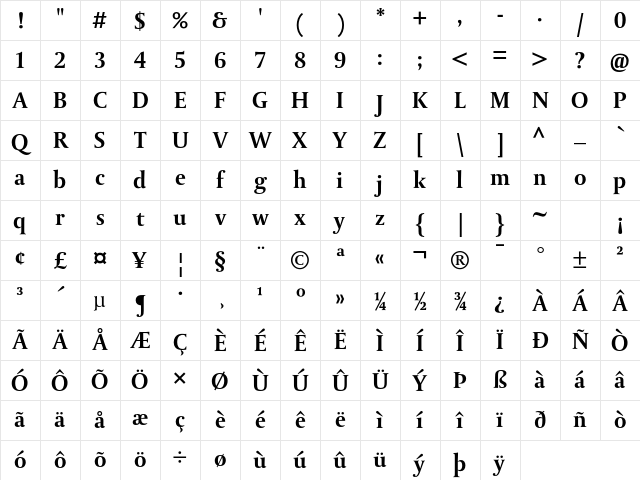
DTLParadoxT Bold
Design Context for DTLParadoxT
DTLParadoxT is a composed and adaptable typeface that performs quietly and consistently across a wide range of design contexts. Its bold stroke weight gives it real presence on the page.